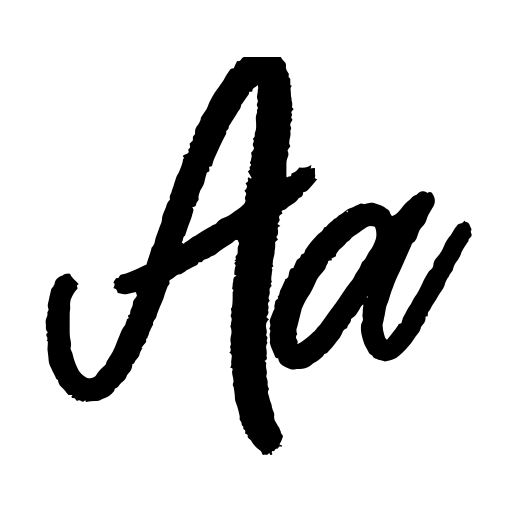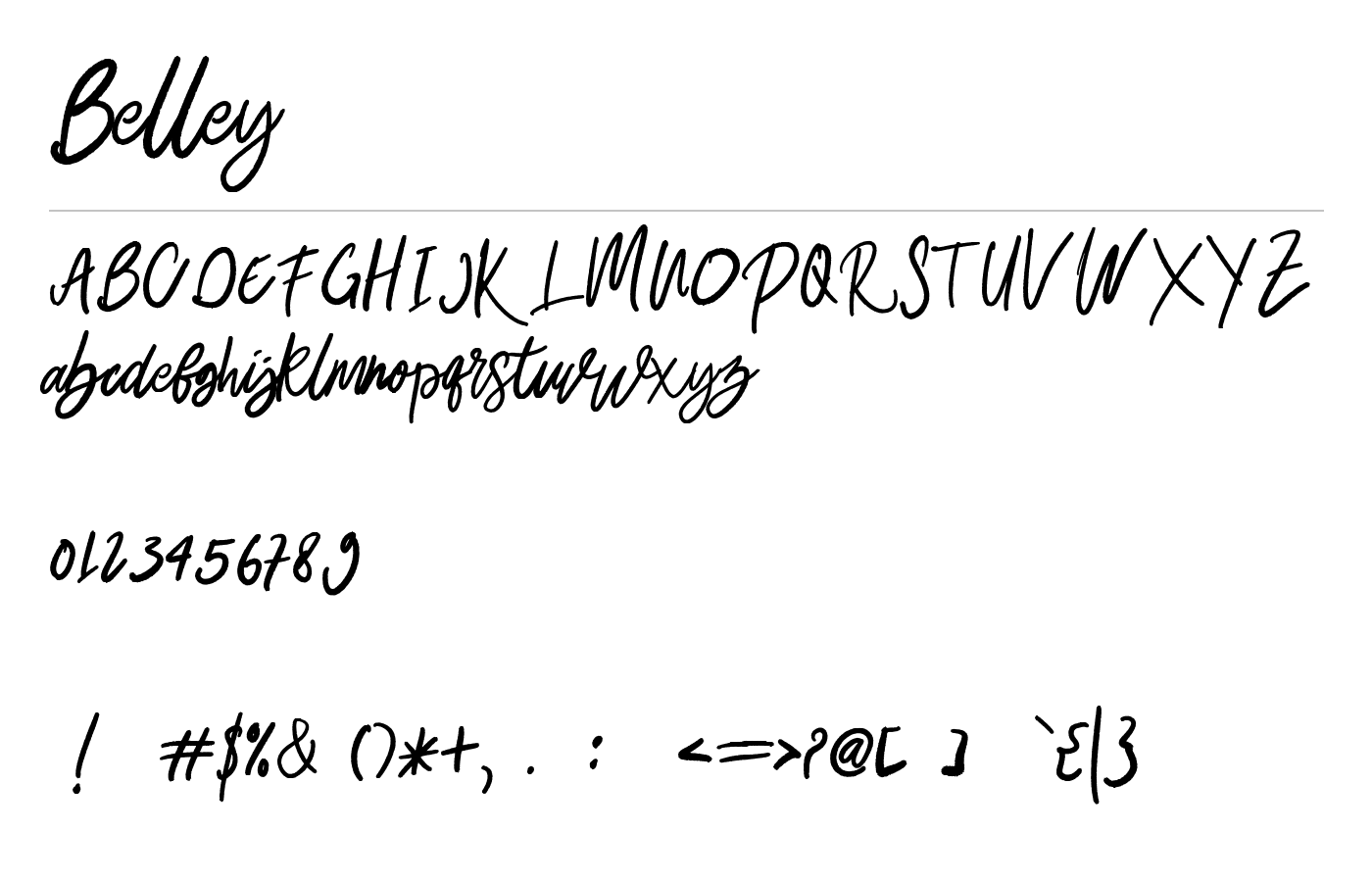
Belley is a lively and elegant script font that mimics natural handwriting with smooth, flowing strokes and a casual yet refined feel. Its slender, slightly playful letterforms make it perfect for creative branding, invitations, and personal projects where a touch of warmth and personality is desired. This font works especially well for logos and headlines that need a friendly, approachable style without sacrificing sophistication.
Belley Font
About Belley Font